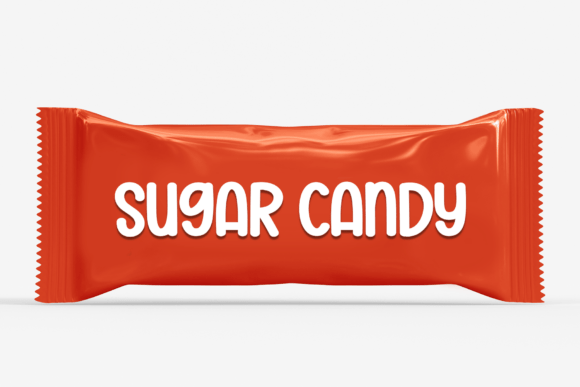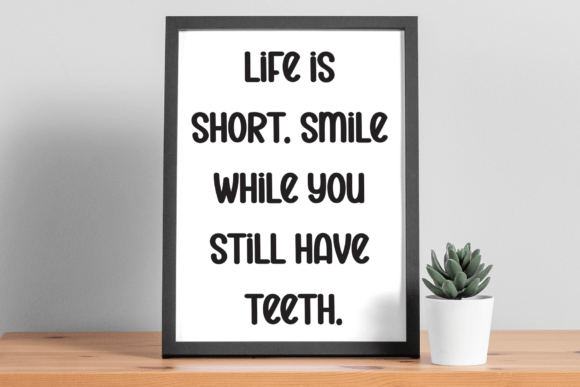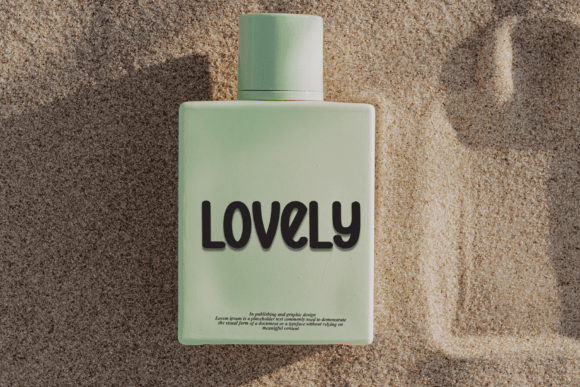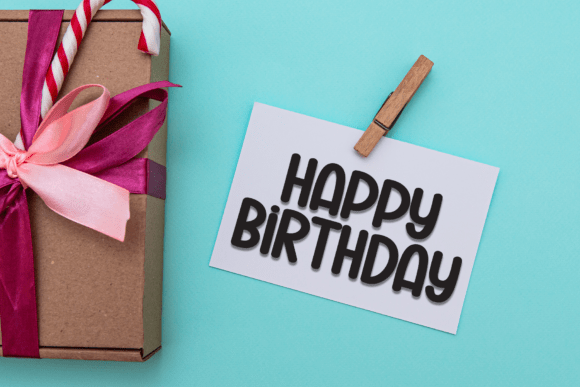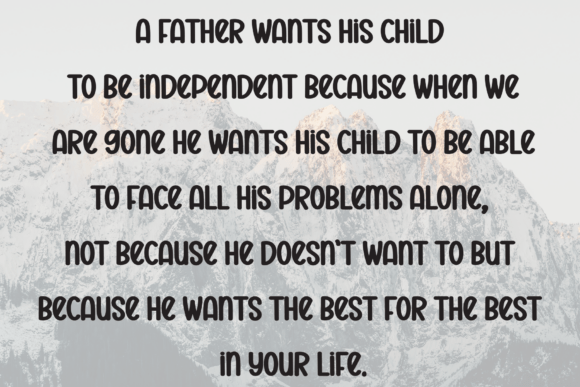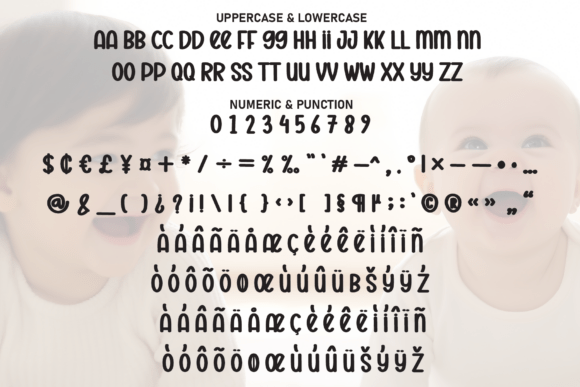
The Perfect Typeface for Making a Statement
Have you ever been working on a project, pouring your heart and soul into every detail, only to feel like something is missing? That’s exactly how I felt when I was designing a promotional campaign for a new baby store. I needed a font that would grab the audience’s attention, convey a sense of excitement and joy, and make the brand stand out. That’s when I discovered the Best Baby Font – a game-changing typeface that would revolutionize my design.
The Best Baby Font is a powerful, modern typeface designed to make a statement. With its thick strokes and strong presence, it’s ideal for headlines, posters, branding, logos, and any project that needs to be loud and clear. As a designer, I can attest that this typeface is a valuable addition to any toolkit, delivering high impact with effortless style.
Best Baby Font Key Features
- Font Size: 1000 glyphs, providing a comprehensive set of characters and symbols for various languages and applications.
- Resolution: Optimized for high-resolution displays, ensuring clear and crisp text rendering on modern devices.
- Unique Characteristics: Designed specifically for baby-related content, featuring cute and playful characters, including baby animals, toys, and nursery items.
- Style Options: Includes various font styles, such as bold, italic, and condensed, to cater to different design needs and preferences.
Designer Review: Best Baby Font
Overall, I’d say Best Baby Font is a cute and playful typeface, perfect for any nursery or children’s project. Here are some of the things that really stood out to me: ✨
- Its rounded edges and soft curves give it a friendly and approachable feel.
- The font is highly customizable, with a wide range of weights and styles to choose from.
- It’s a great choice for creating a whimsical and imaginative atmosphere.
However, there are a few limitations that might make it less suitable for certain projects: ⚠️
- The font can feel a bit too playful and immature for certain design applications.
- It may not be the best choice for projects that require a lot of text, as it can be quite decorative and hard to read.
In terms of overall impression, I’d say Best Baby Font is a solid choice for any design project that requires a playful and approachable typeface. While it may not be perfect for every project, it’s definitely worth considering for anything related to children or youth.
The Best Baby Font is perfect for creating adorable baby-themed designs, such as:
- Baby announcement cards
- Baby shower invitations
- Baby picture frames
- Baby gift tags